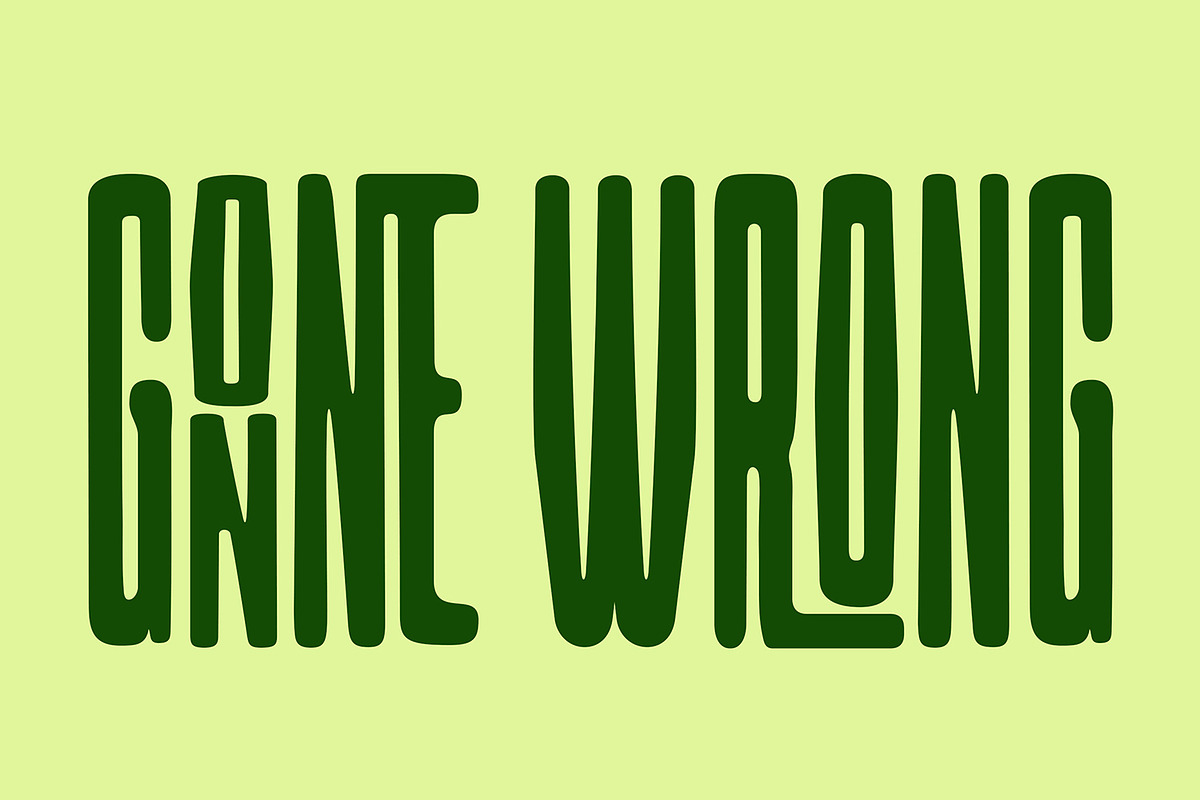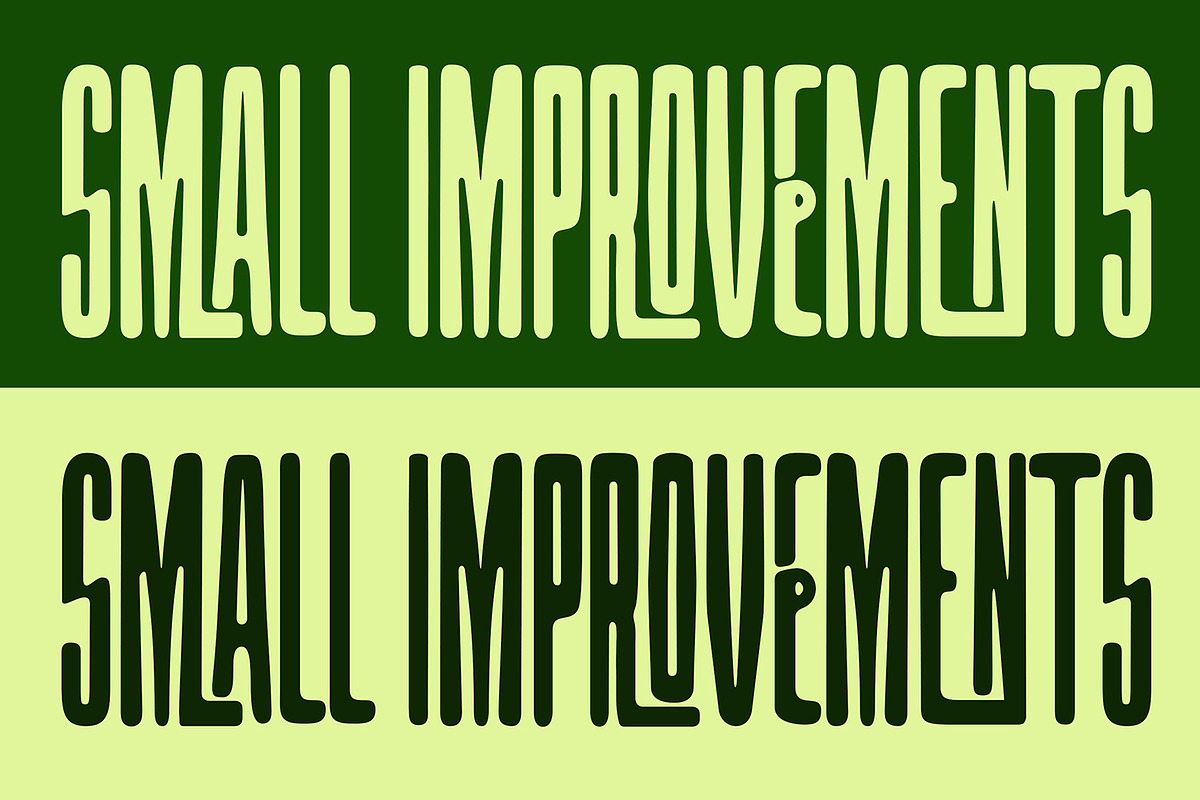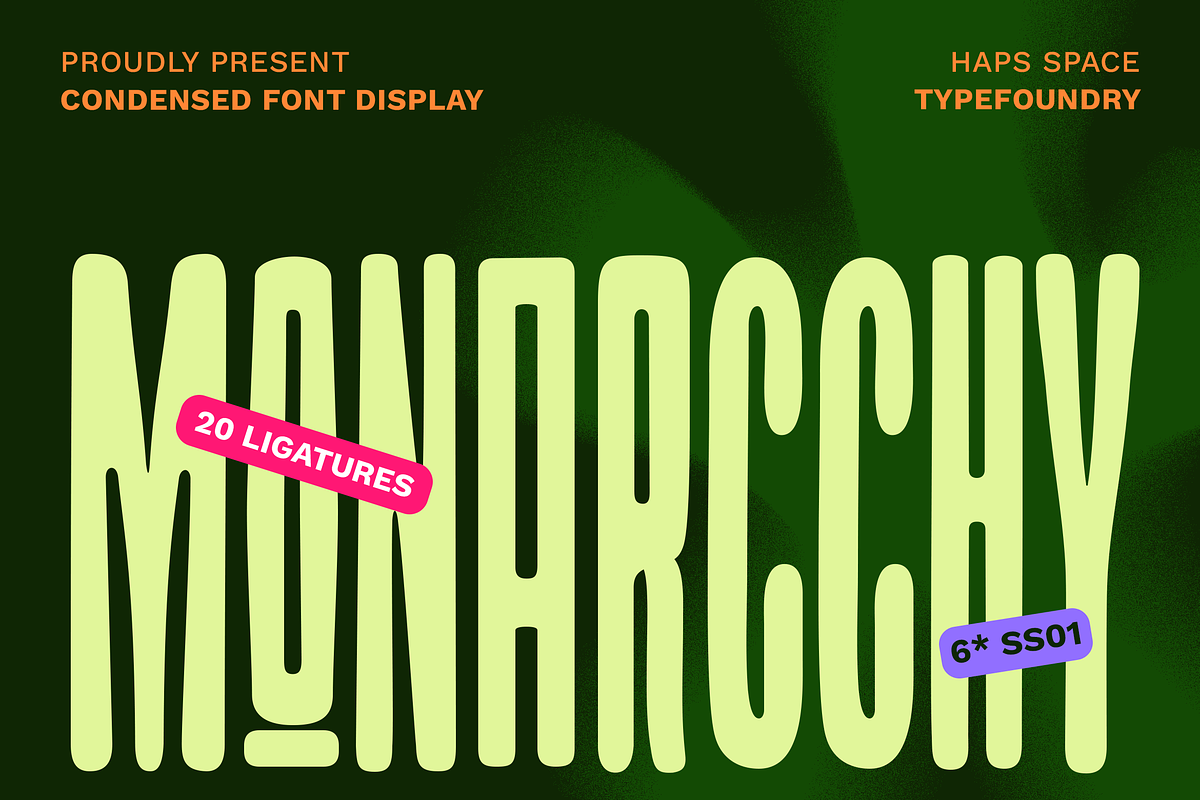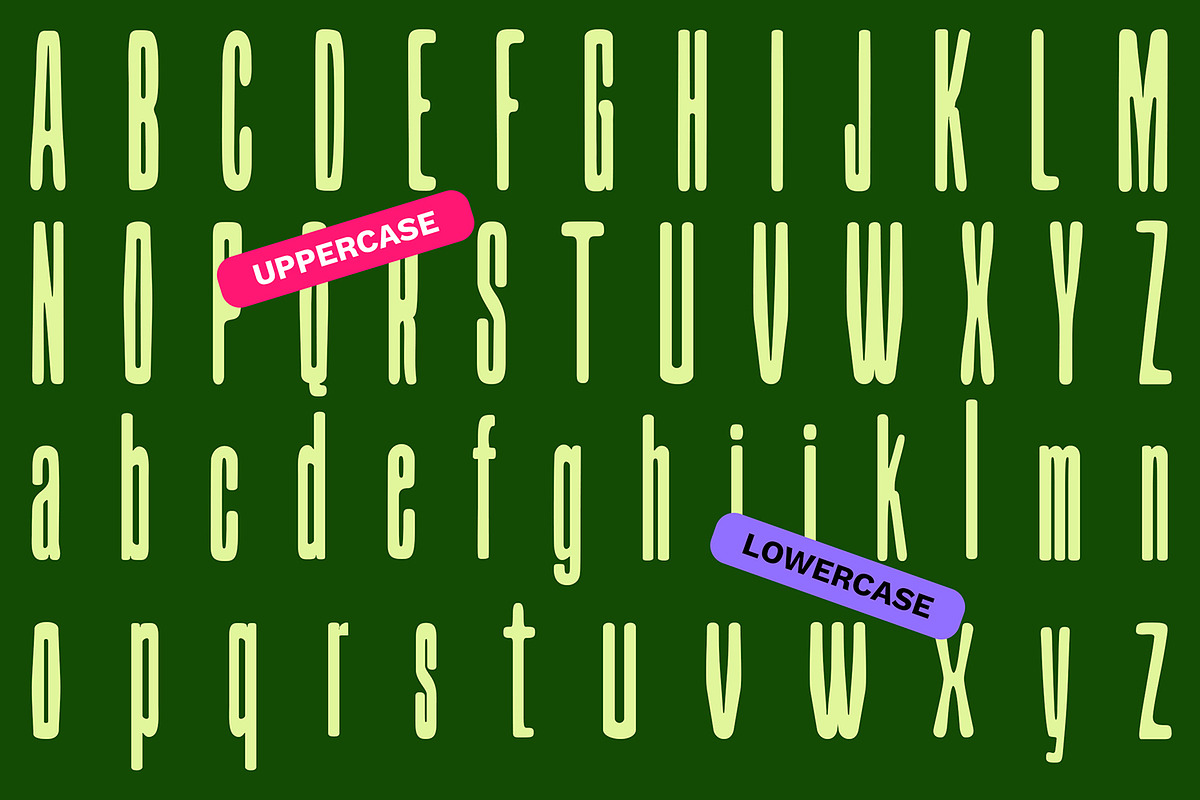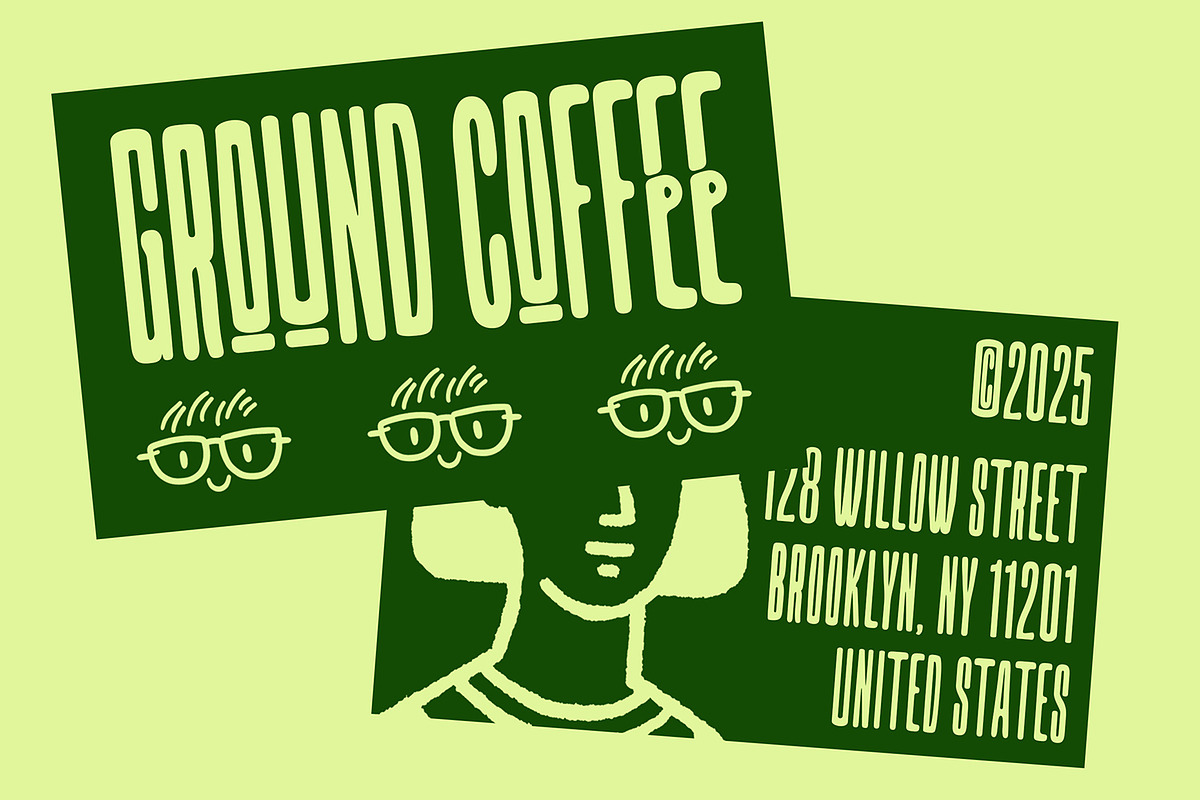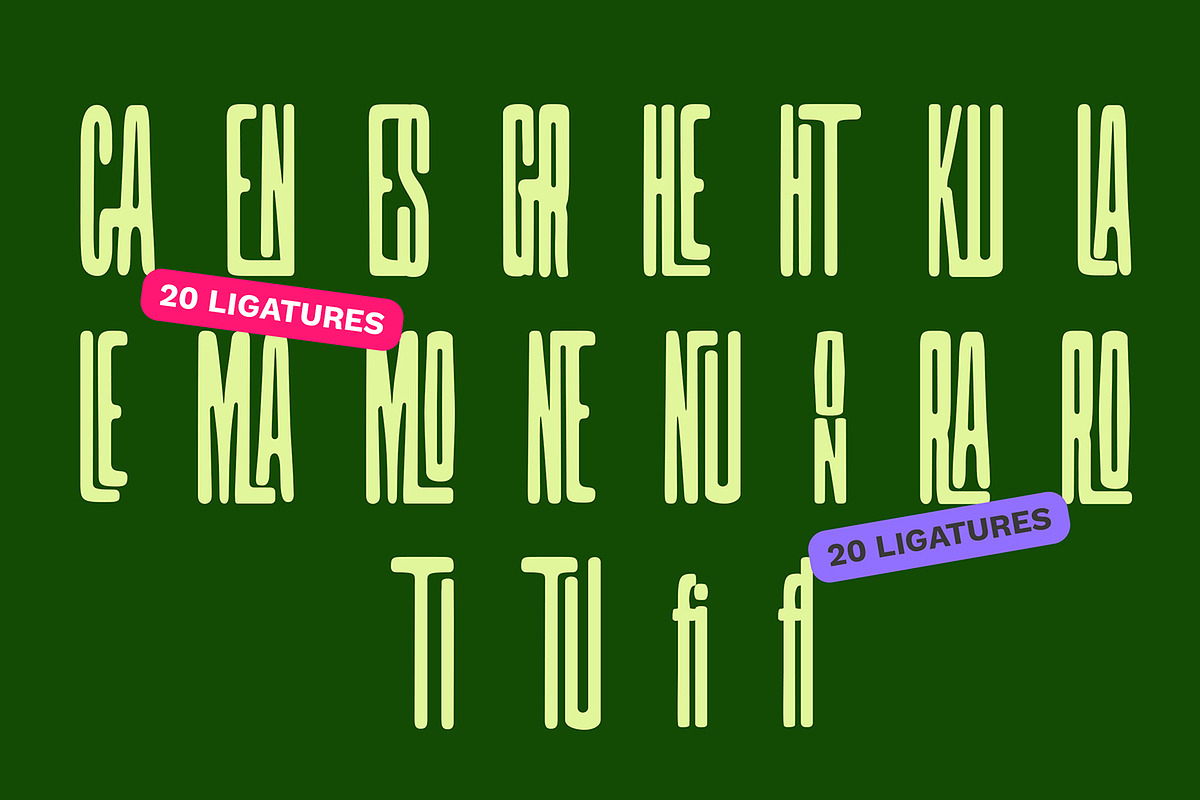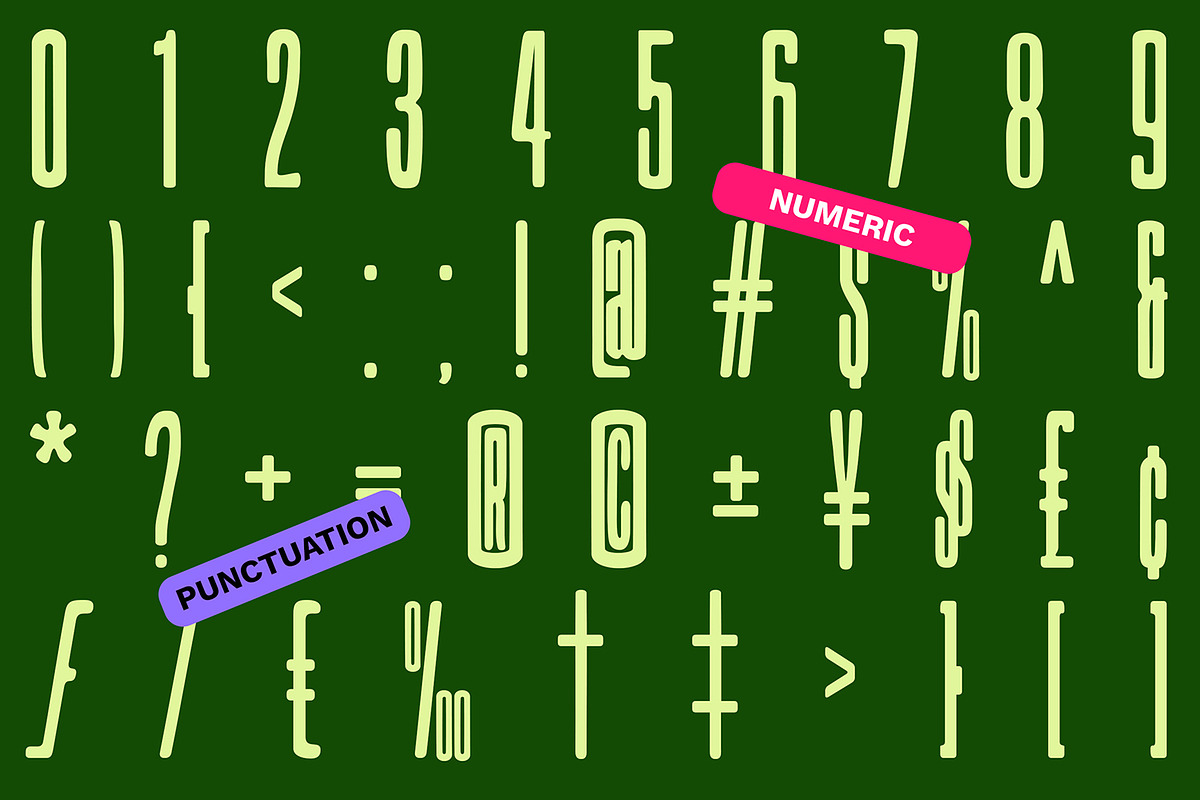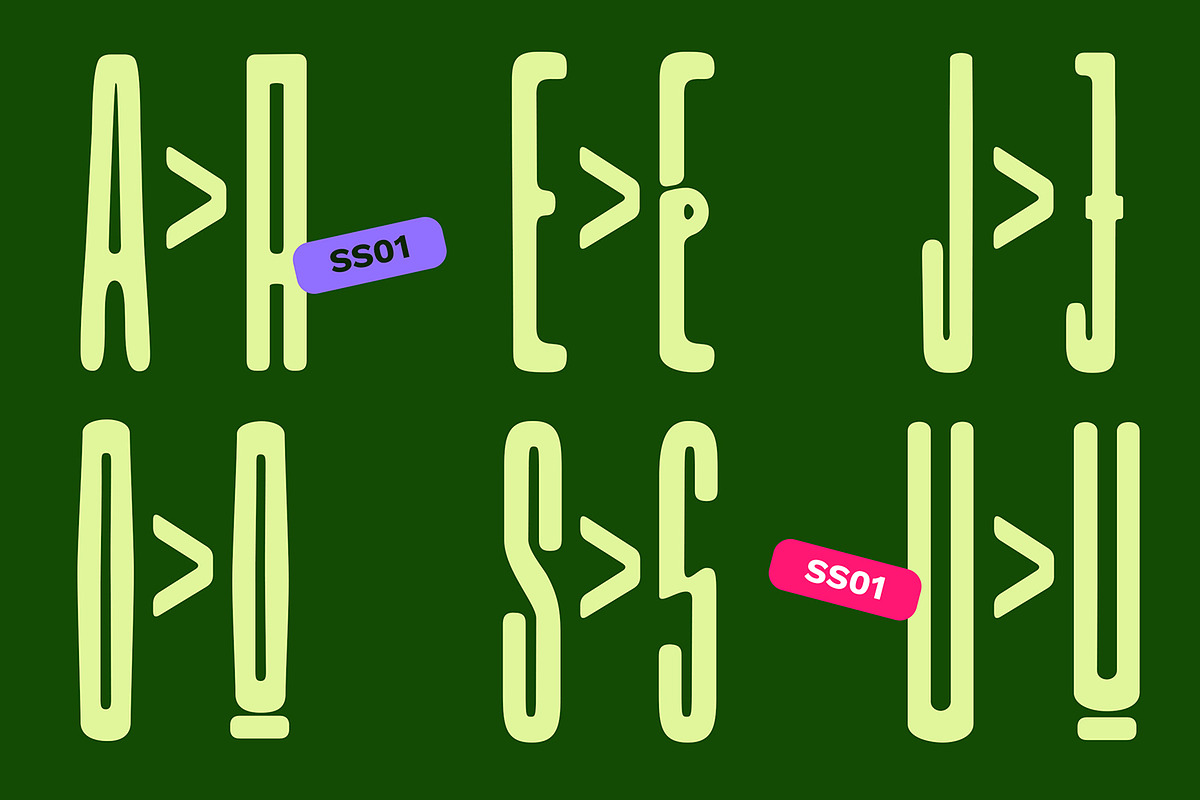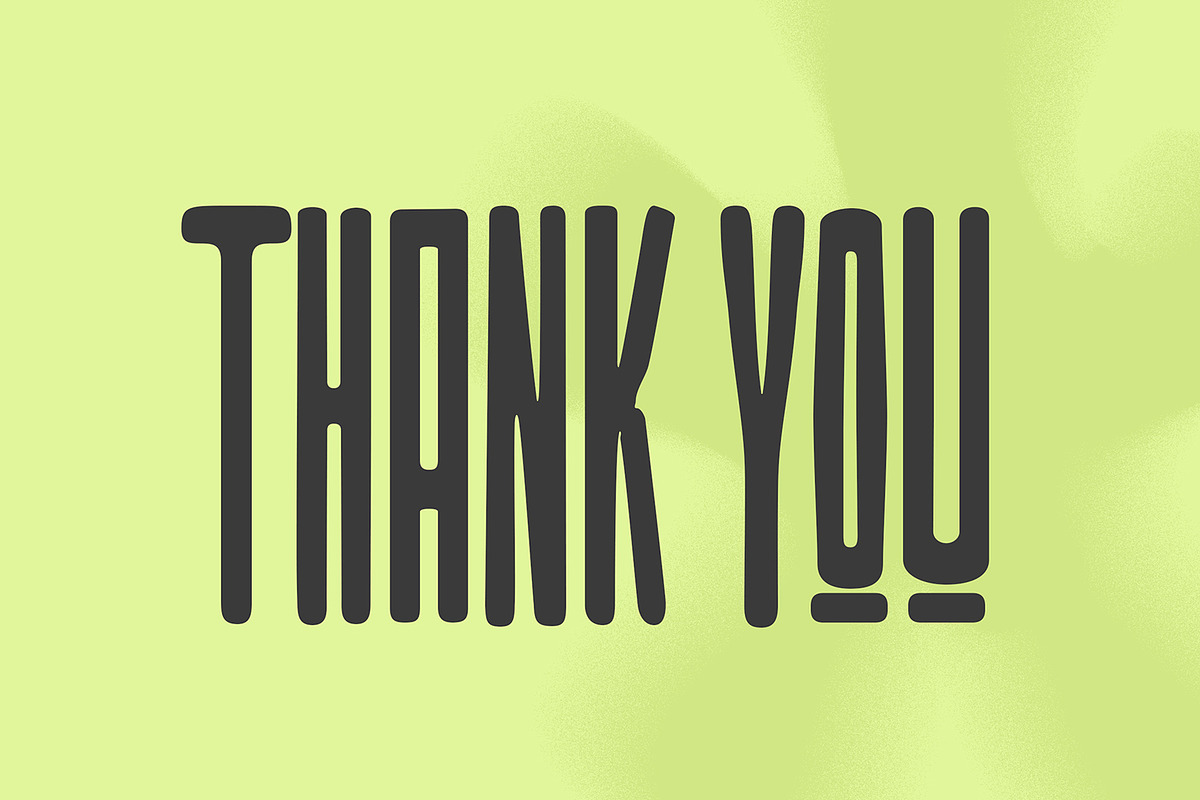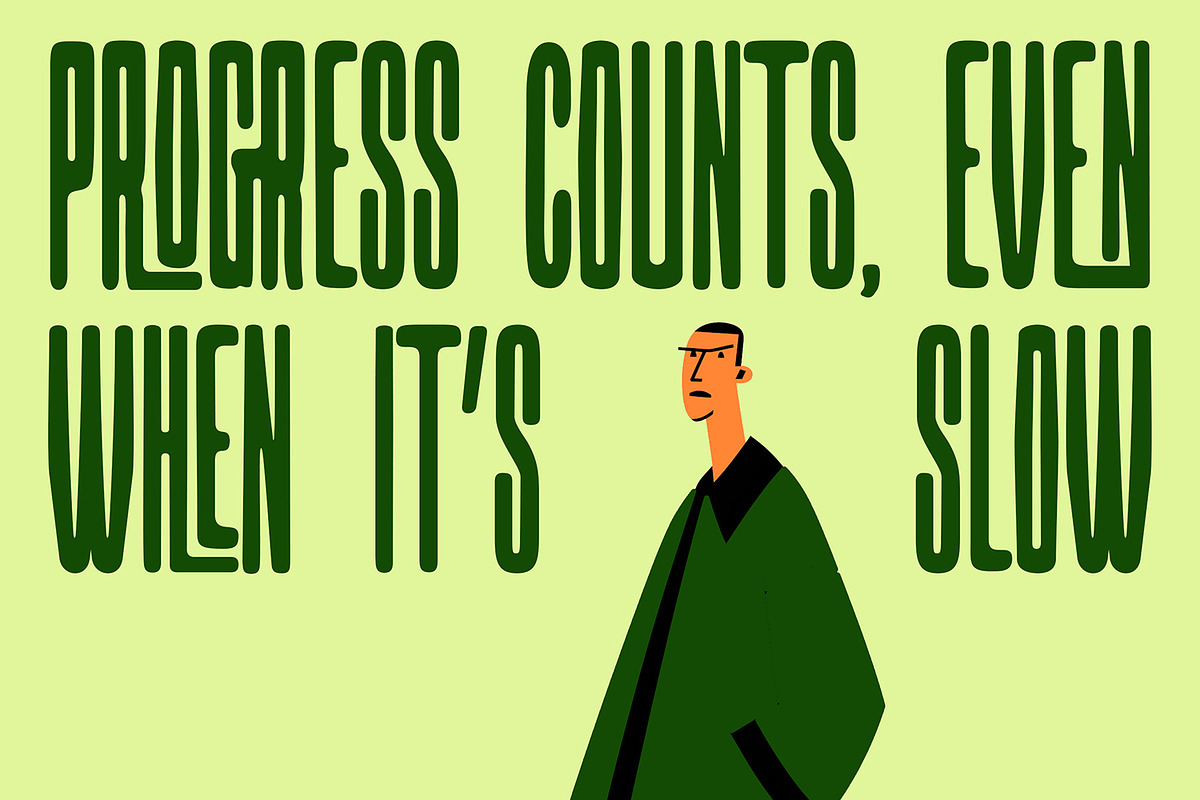
Monarchy Bold Condensed Display
Monarchy is a bold condensed display font designed to deliver strong visual impact with a modern and expressive character. Featuring tall letterforms, smooth curves, and confident proportions, this typeface is perfect for headlines, posters, branding, editorial layouts, packaging, and digital design projects.
Equipped with 20 stylish ligatures and 6 stylistic alternates (SS01), Monarchy allows designers to create distinctive typographic compositions while maintaining readability and elegance. Its contemporary yet playful personality makes it suitable for both experimental and professional design needs.
Ideal for creative studios, branding projects, social media graphics, music posters, fashion visuals, and eye-catching titles.
OpenType features such as ligatures and alternates